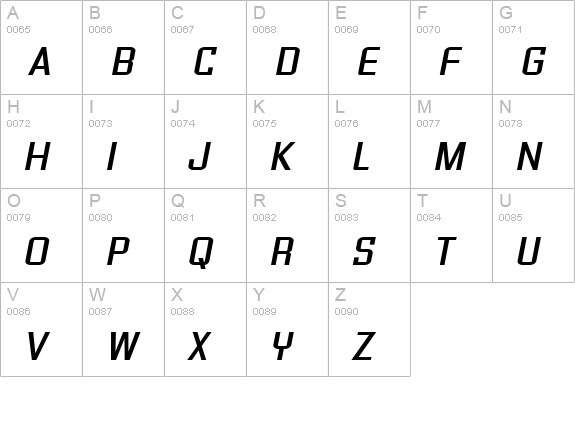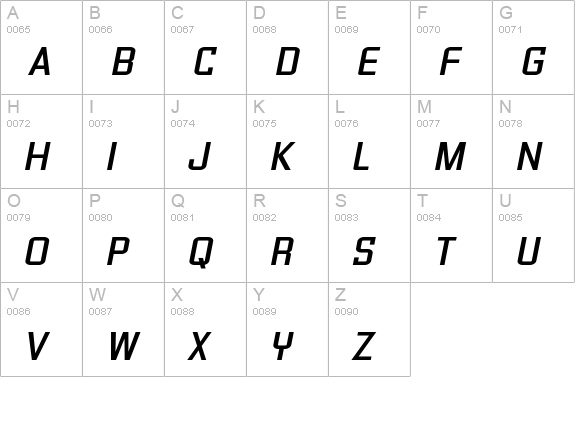
Gasoline Sans BTN BoldOblique Font Details
Gasoline Sans BTN BoldOblique is a sleek and modern typeface that exudes strength and confidence. Its bold and oblique design adds a touch of sophistication to any project, making it perfect for headlines, branding, and marketing materials. The sharp angles and clean lines of this font give it a dynamic and energetic feel, making it stand out in any design. What's even better is that Gasoline Sans BTN BoldOblique is available for free download at FontsMarket.com. This means you can easily access and use this stylish font in your projects without any cost. So why wait? Elevate your designs with Gasoline Sans BTN BoldOblique today!